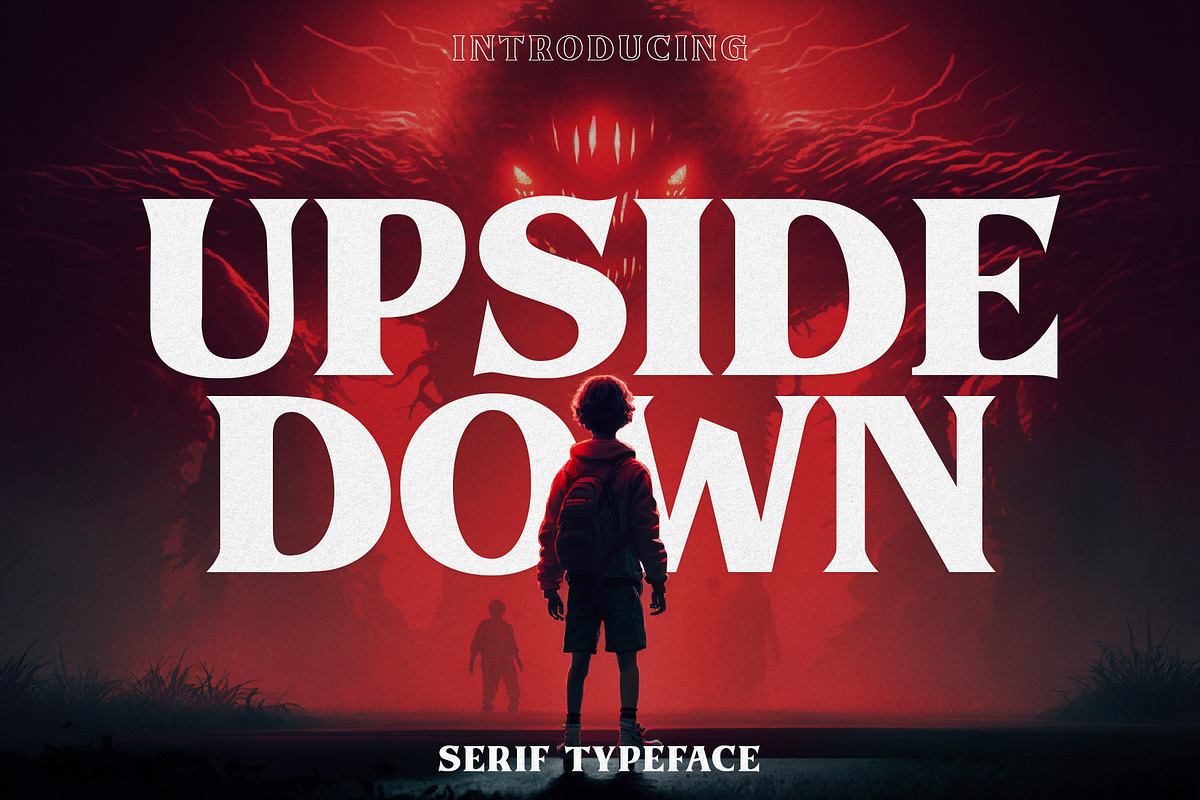
Upside Down - 1980s Retro Typeface Free Download
Upside Down 1980s Retro Typeface Free Download
Upside Down 1980s Retro Typeface Free Download is a bold, nostalgic font that channels the electric energy of the '80s. With its sharp angles, neon-inspired style, and synthwave vibes, this typeface is perfect for retro posters, music covers, arcade-themed designs, fashion branding, and pop culture projects.
It instantly transports your designs into a world of VHS tapes, analog synths, and neon lights—bringing that vintage cool factor to both print and digital layouts. Whether you're designing for a Stranger Things–style throwback or a bold statement piece, Upside Down delivers attitude, flair, and unmistakable retro charm.